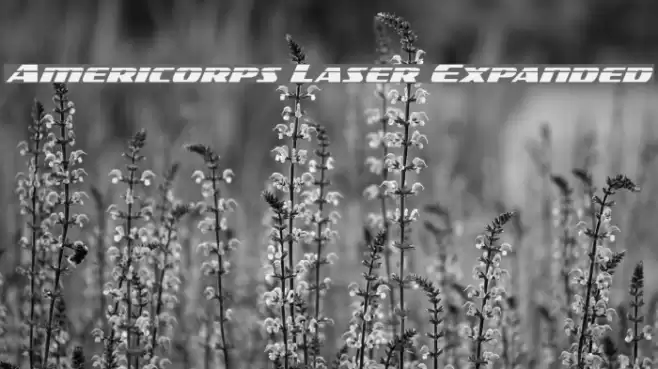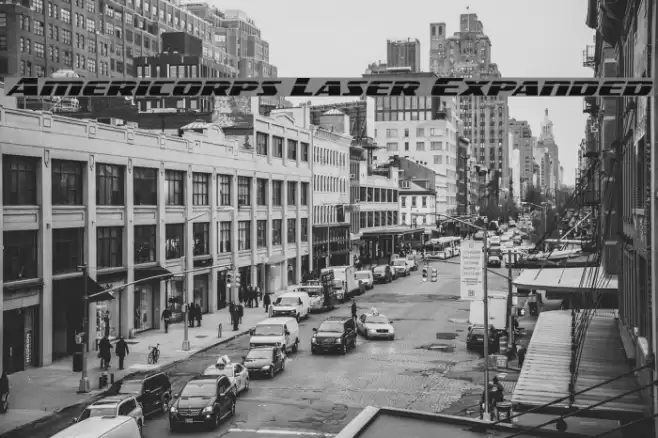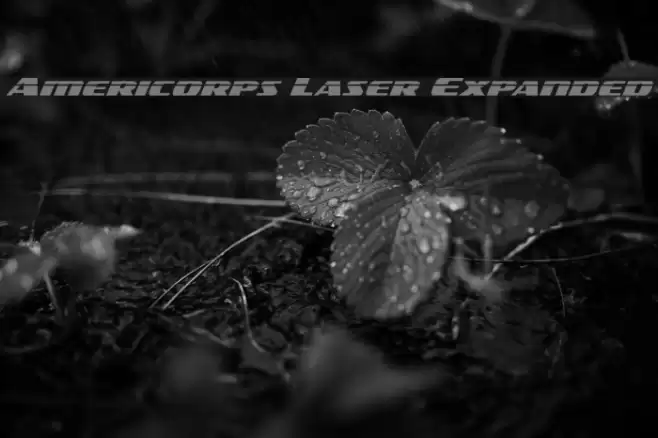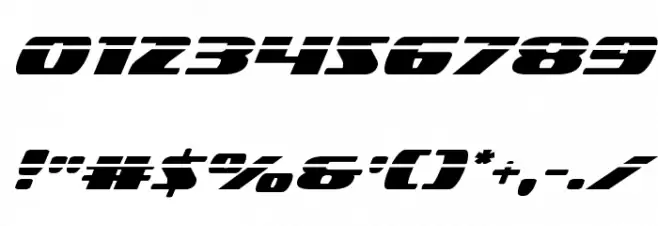
Americorps Laser Expanded Font
Americorps Laser Expanded Description
This font features a bold and futuristic design with a distinctly expanded width. The characters are sharply angled, giving a dynamic and energetic feel. The strokes are thick and consistent, providing a strong presence on the page. The uppercase letters are particularly striking, with a geometric style that suggests movement and speed. The lowercase letters maintain the same boldness, ensuring readability while retaining the font's unique character. Numbers and special characters are designed with the same attention to detail, making them suitable for a variety of applications. Overall, this font is ideal for projects that require a modern and impactful look.
A bold, expanded font with a futuristic and dynamic design from Uncategorized fonts.
- Proposed Projects: Ideal for branding, sports team logos, sci-fi themed posters, and dynamic headlines.